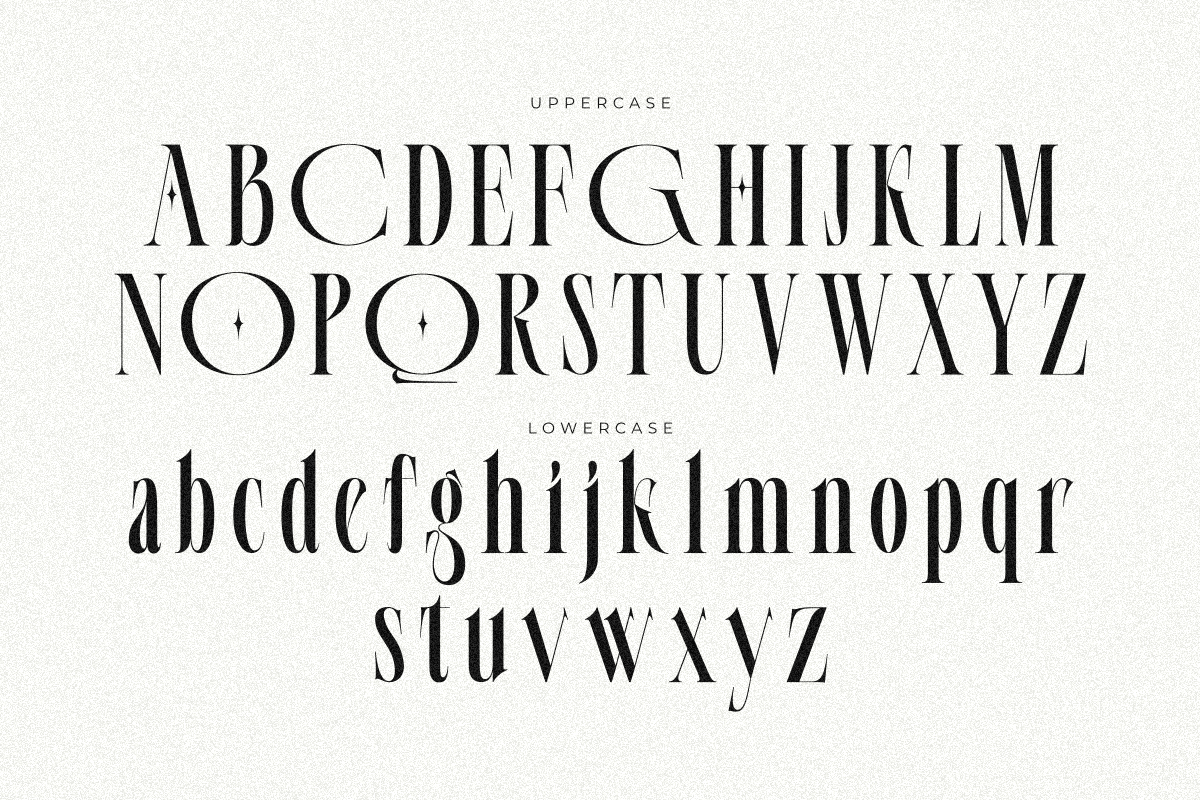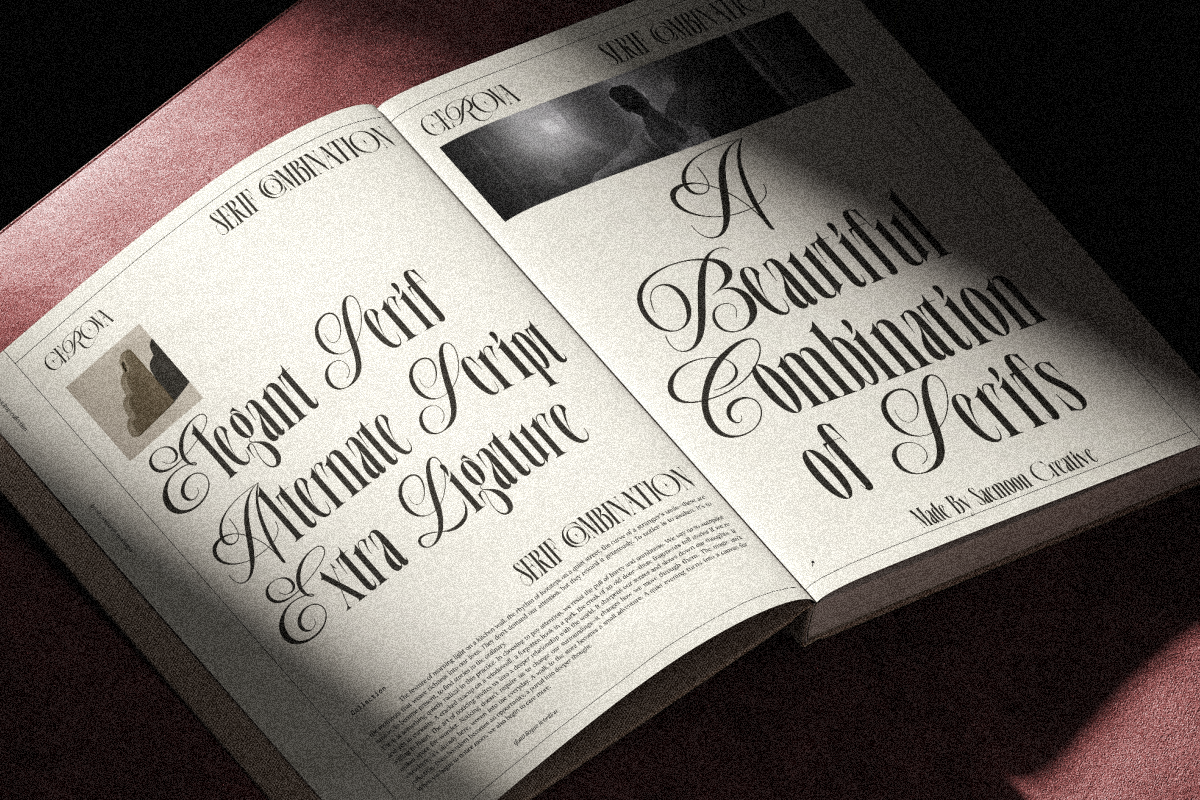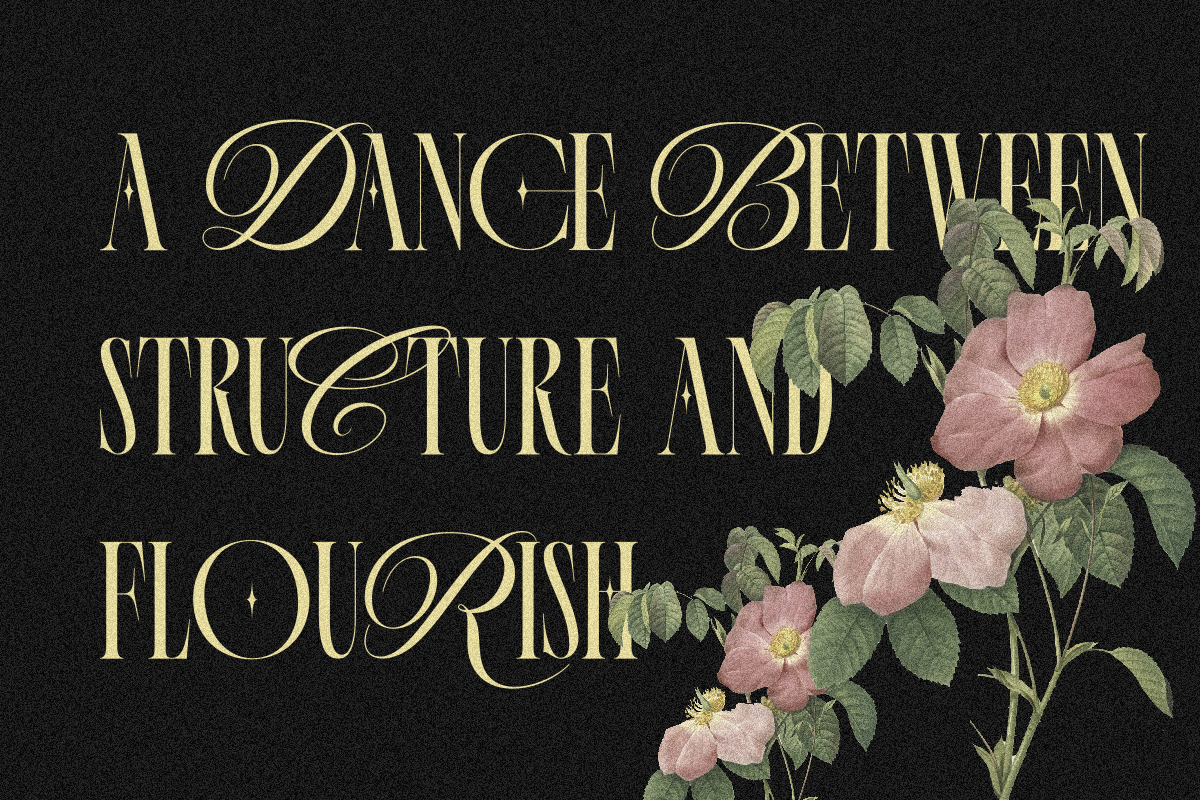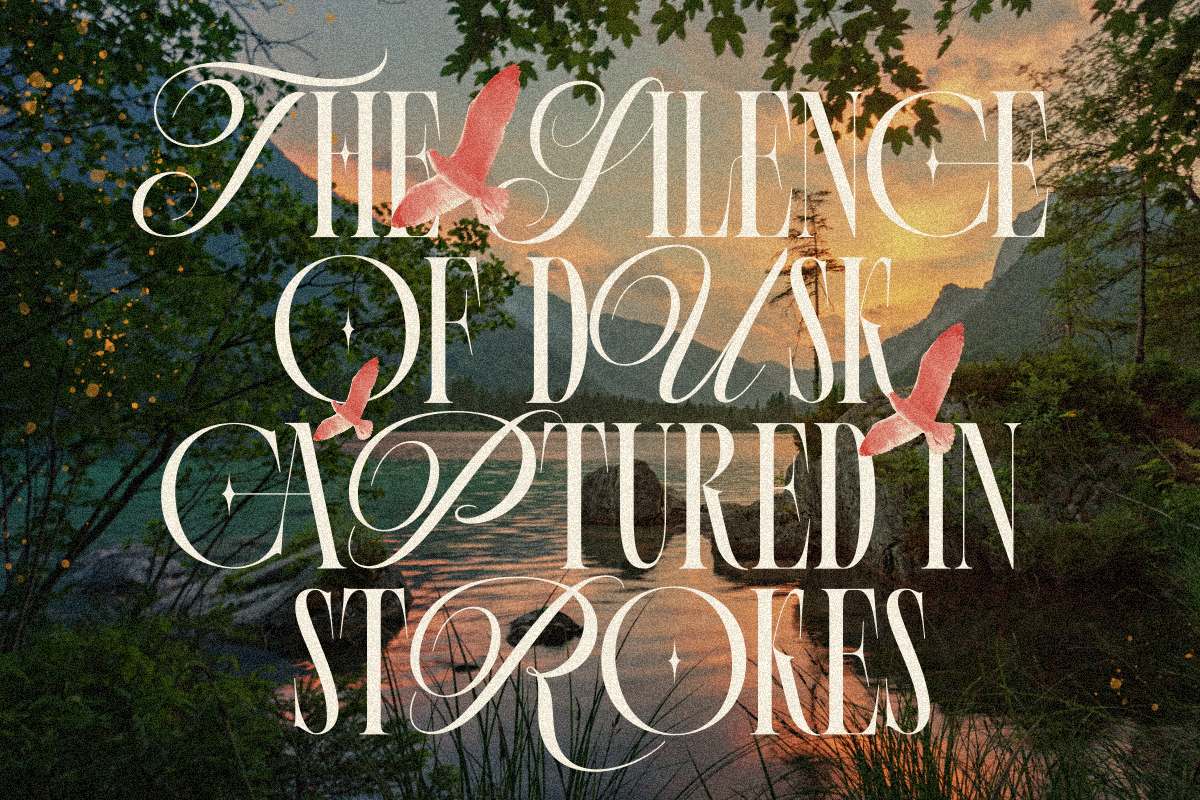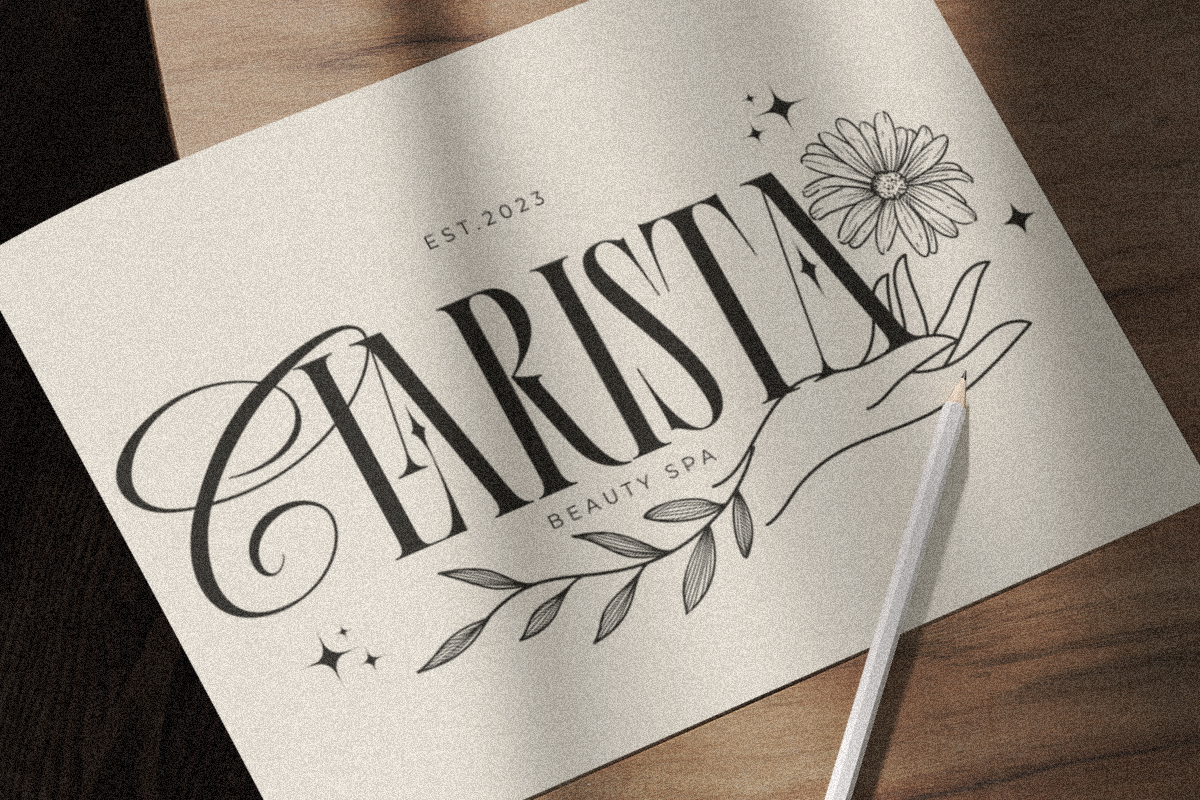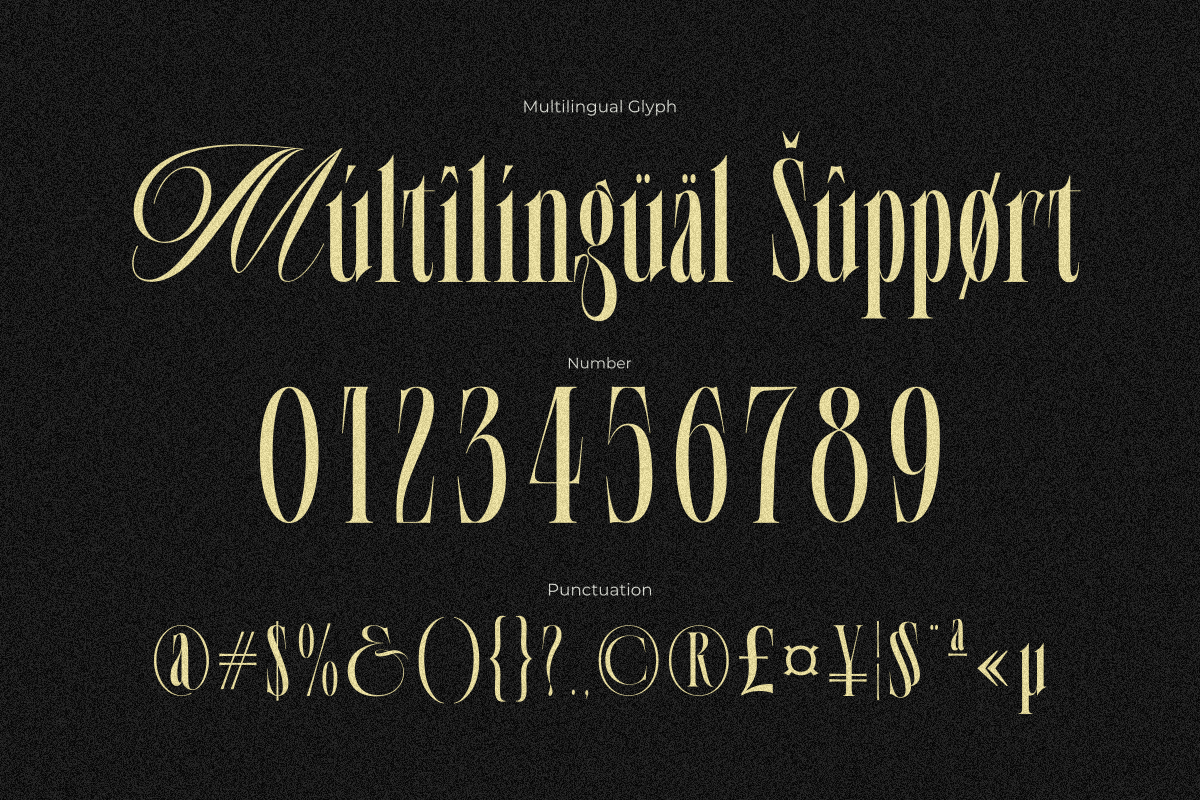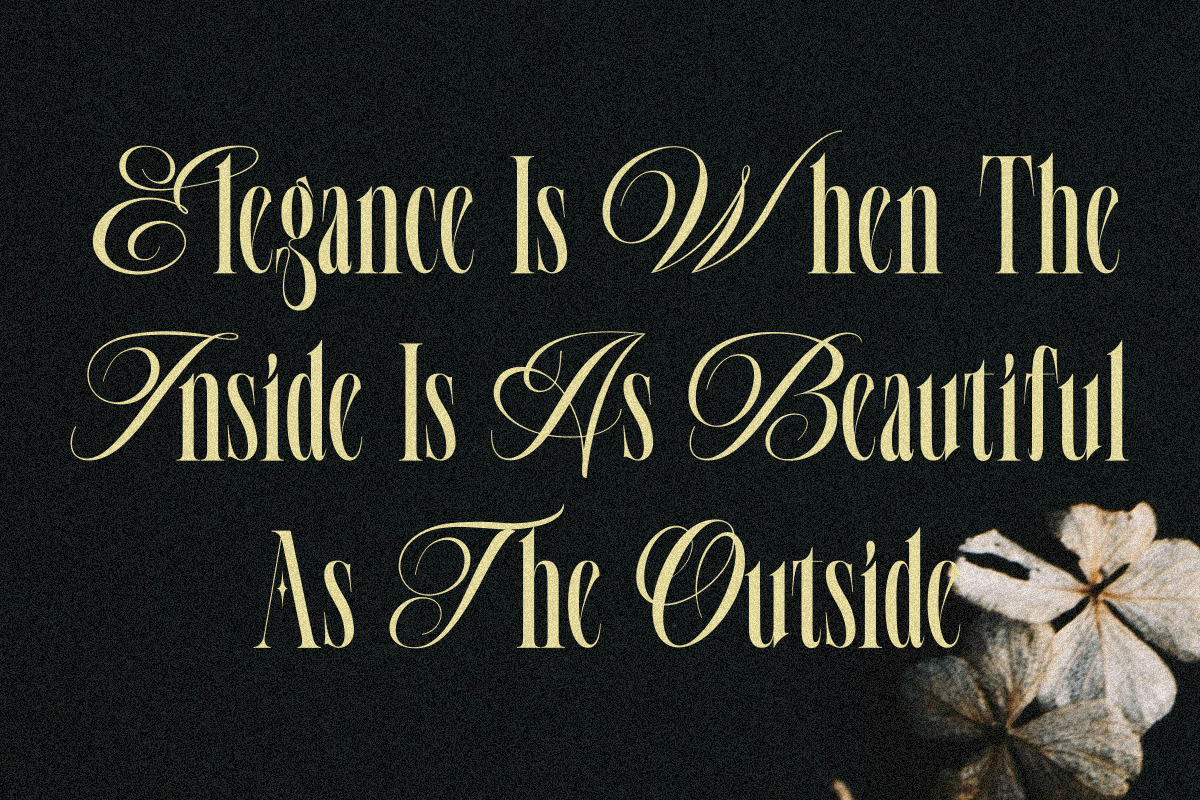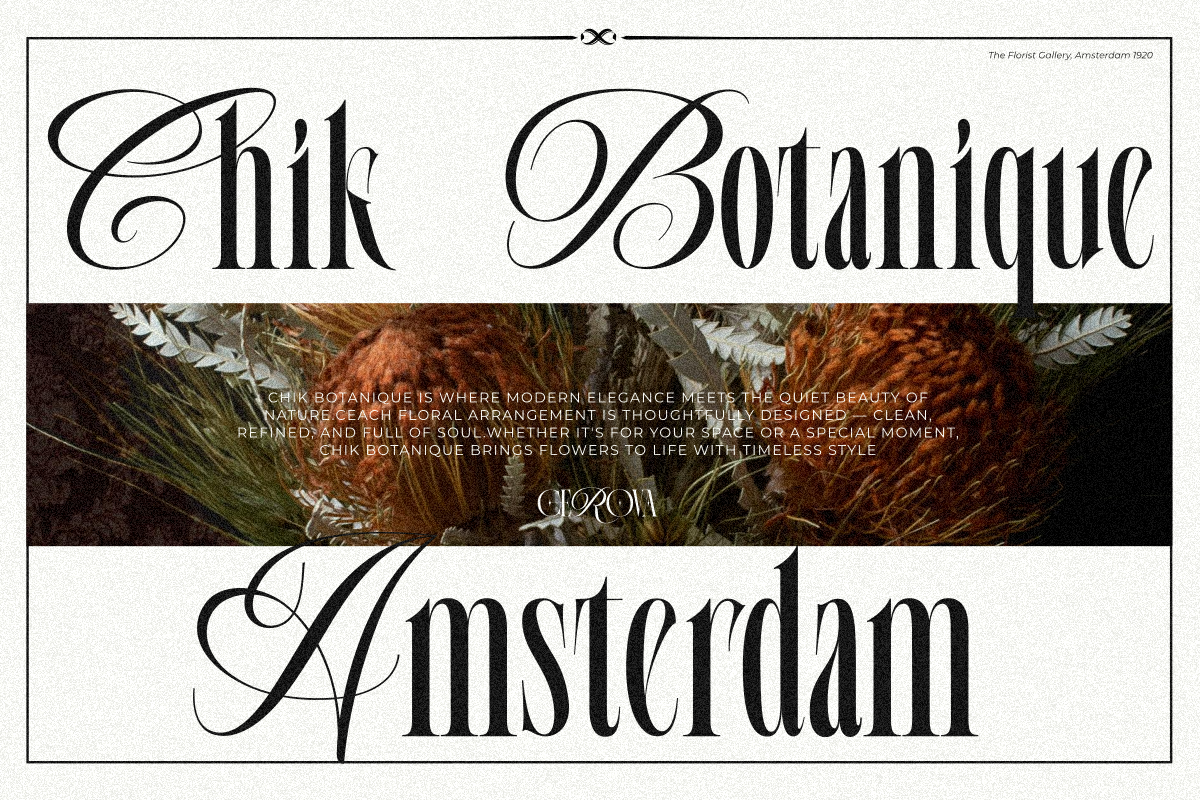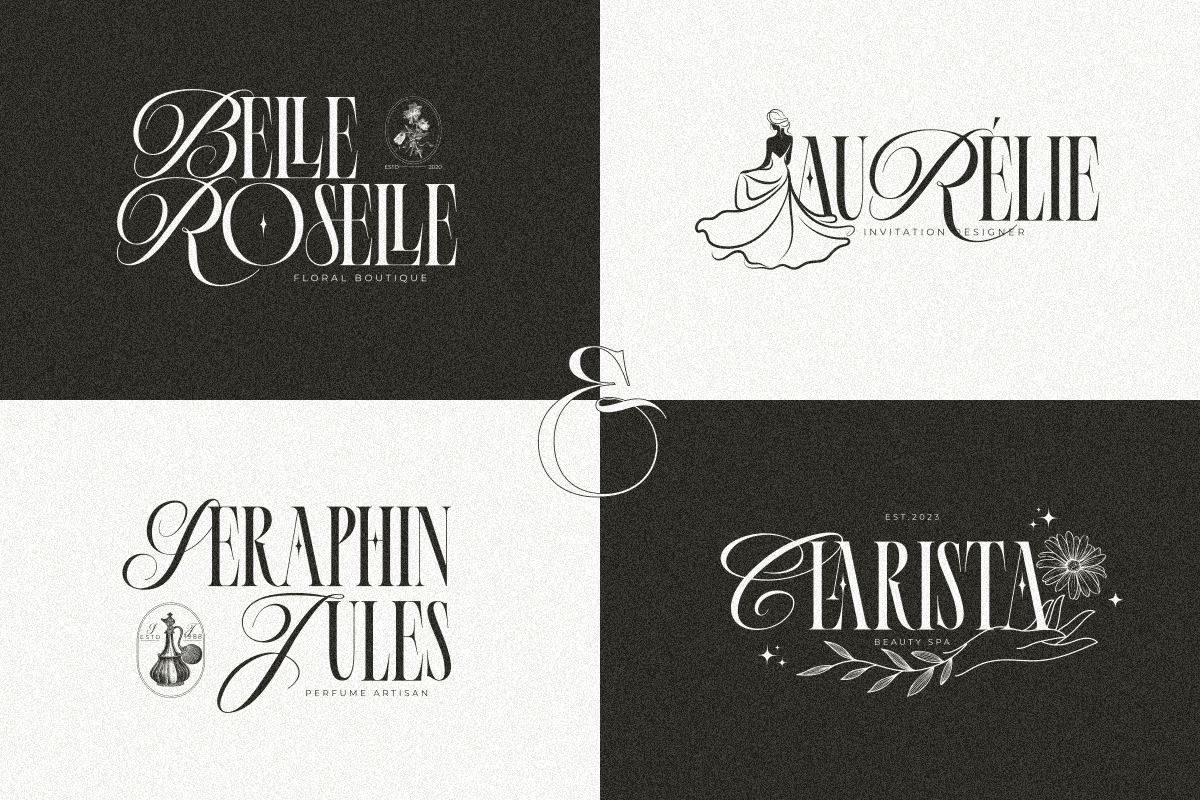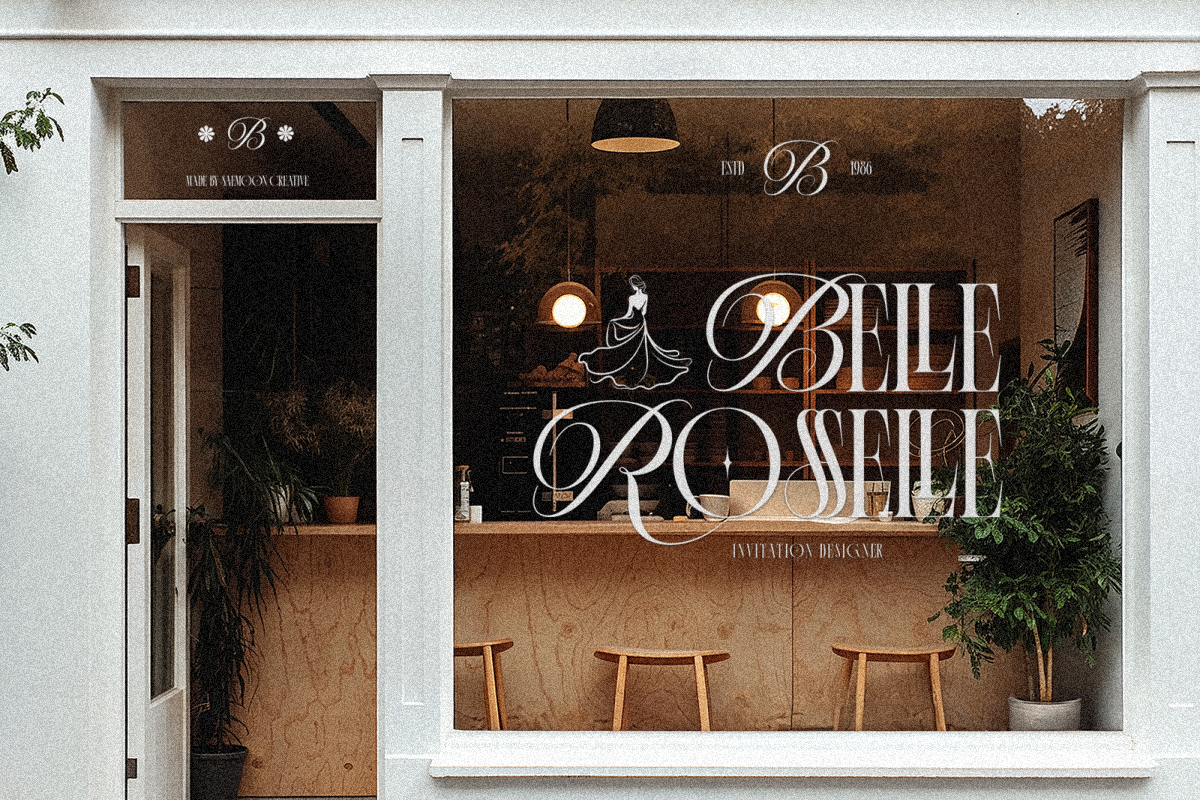
Cerova
Cerova is a luxurious serif font designed with elegant touches through its full script-style capital alternates. Each uppercase letter features graceful and artistic curves, giving it a distinctive character—making Cerova the perfect choice for logos and high-end product branding.
The blend of classic serif structure with soft script details gives Cerova a refined, sophisticated look. It's ideal for fashion labels, cosmetics, jewelry, and lifestyle products that aim to communicate elegance and exclusivity.
Elegant full-script capital letter alternates
Classic serif style with a modern, feminine twist
Beautiful ligatures and decorative characters
Perfect for logos, product branding, packaging, and premium promotional designs
With Cerova, every letter becomes a visual identity that is strong, graceful, and unforgettable. Make a lasting impression with timeless luxury